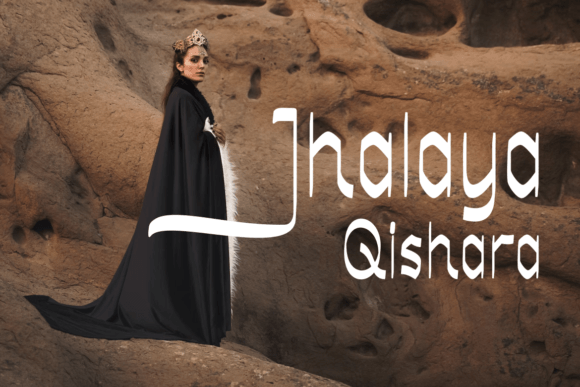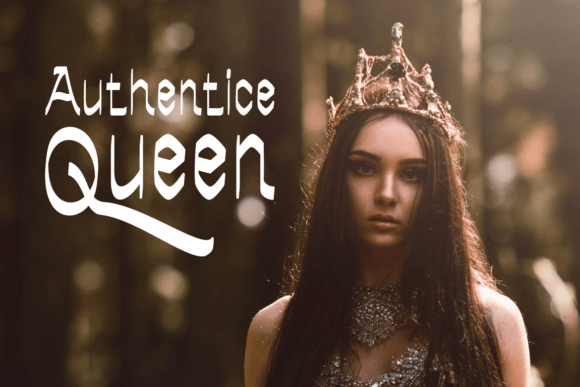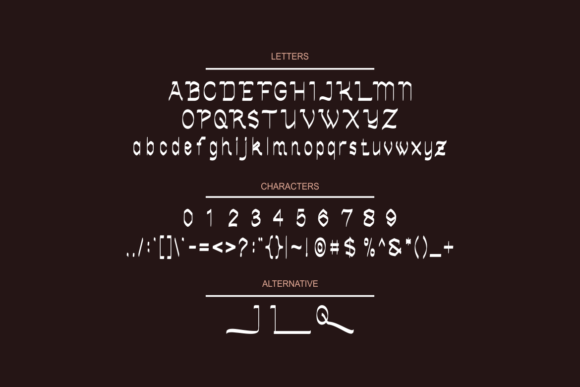
Introduction to Jhau Queens Font
Imagine you’re brainstorming ideas for your latest creative project, and you’re stuck on the perfect font to give it that extra oomph. You’ve tried countless free downloads, but nothing seems to capture the essence of your vision. That’s where Jhau Queens Font comes in – a modern, bold display font designed to elevate your design projects and leave a lasting impression.
As a designer, you’re always on the lookout for high-quality design resources that can take your work to the next level. With Jhau Queens Font, you’ll find that it’s not only versatile but also incredibly easy to use, making it an excellent addition to your toolkit. Whether you’re working on a logo, a branding project, or an esport, this font is sure to shine – especially when paired with a transparent background, allowing your design to truly stand out.
Key Features of Jhau Queens Font
- High-quality design resource ideal for creative projects requiring a unique touch.
- Unique characteristics include a bold, elegant script and intricate details, perfect for adding a touch of sophistication to any design.
- Designed to be versatile and adaptable, making it suitable for a wide range of creative projects, from branding to editorial content.
Honest Review: Jhau Queens Font
I recently came across the Jhau Queens Font, and I must say it’s been a game-changer for my creative project. This beautiful font is available for free download, which is a huge plus for designers like me who are always on the lookout for high-quality design resources without breaking the bank.
- ✨ Beautiful, intricate design that adds a touch of elegance to any project
- ✨ Highly versatile font that can be used for a variety of creative projects, from branding to editorial design
However, I do have a few minor quibbles:
- ⚠️ The font may be a bit too ornate for some projects, so be sure to use it judiciously
- ⚠️ Some of the characters may not be as legible at smaller font sizes, so be sure to test it out before using it in a live project
Overall, I’m thoroughly impressed with the Jhau Queens Font. It’s a high-quality design resource that’s perfect for designers who want to add a touch of sophistication to their projects. While it may have a few limitations, the benefits far outweigh the drawbacks. I highly recommend giving it a try!
Common Use Cases and Tips
Jhau Queens Font is ideal for use in various design projects, including branding, marketing materials, and digital content. To get the most out of this font, experiment with different font sizes and combinations to achieve a unique look. Additionally, consider pairing the Jhau Queens Font with other high-quality design resources to elevate your creative project.